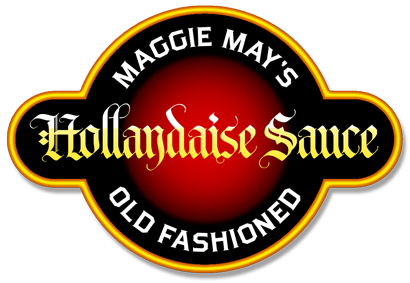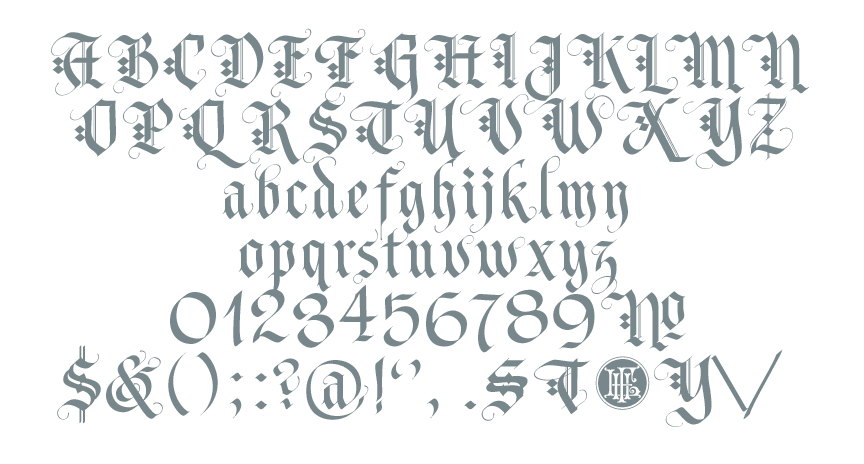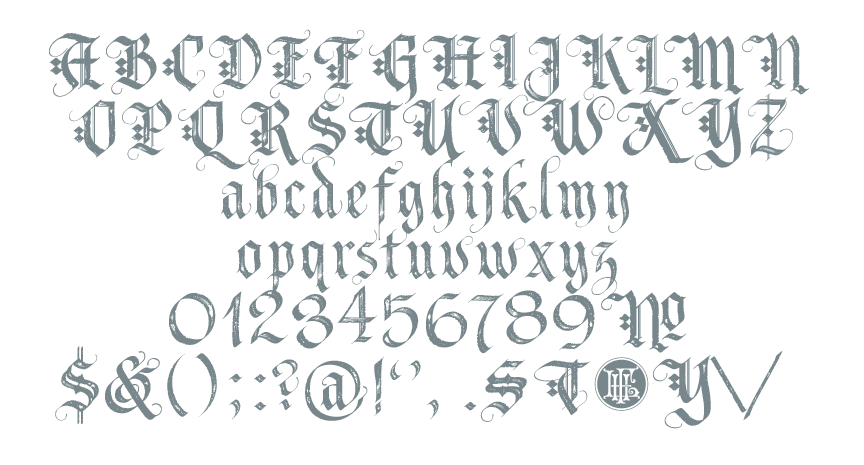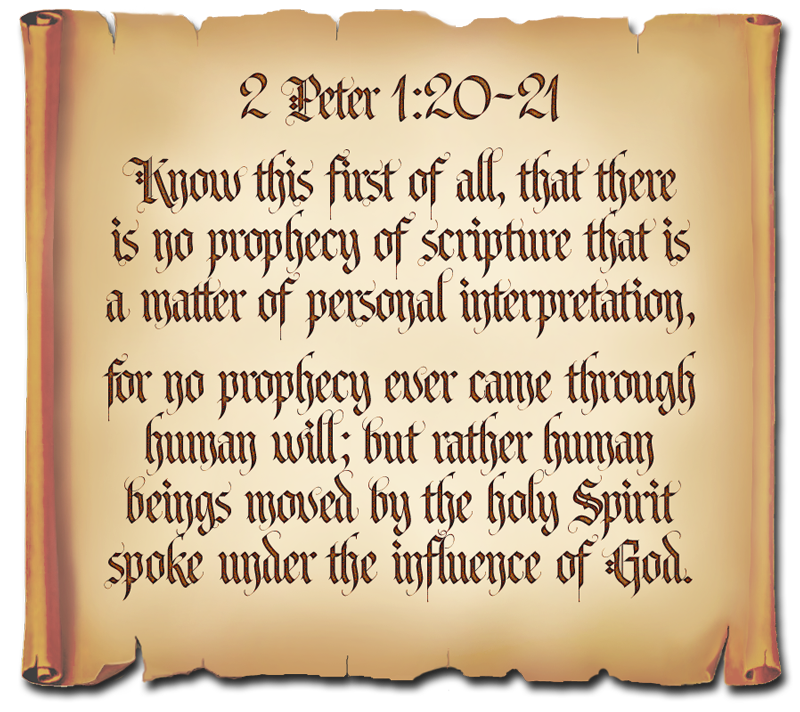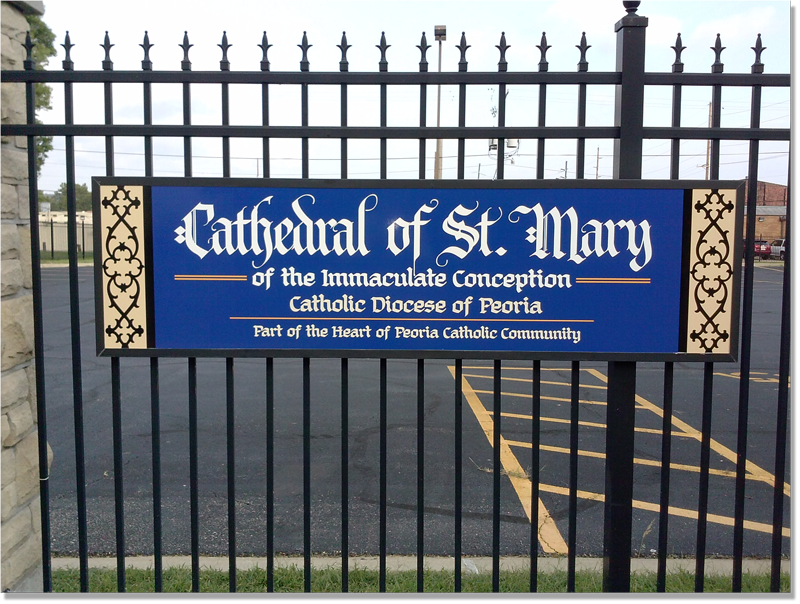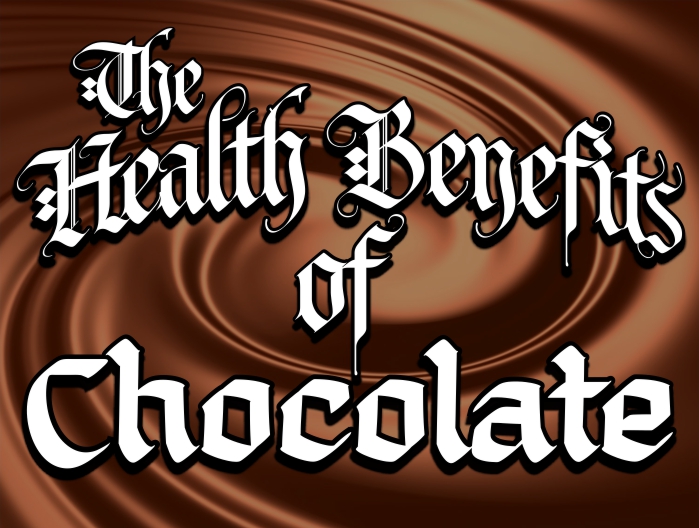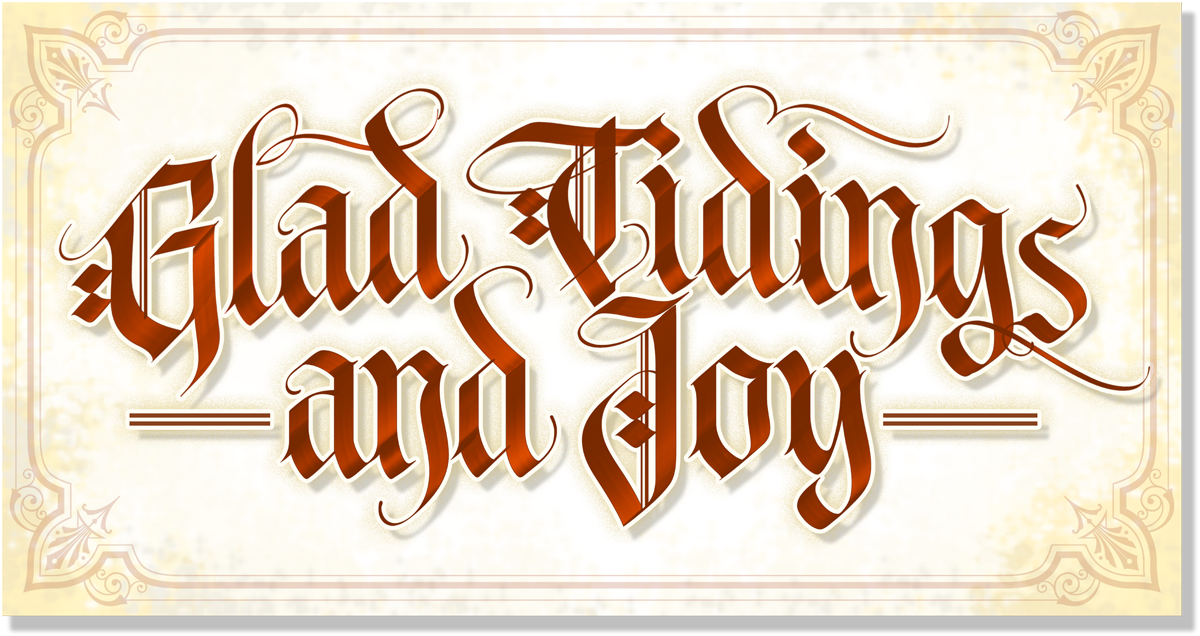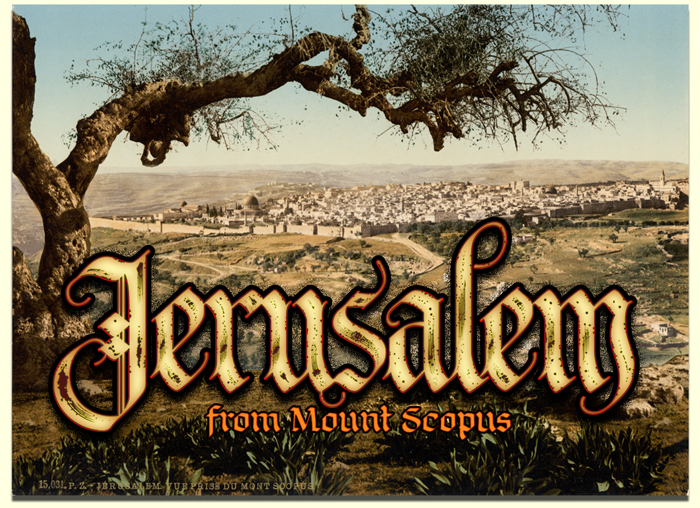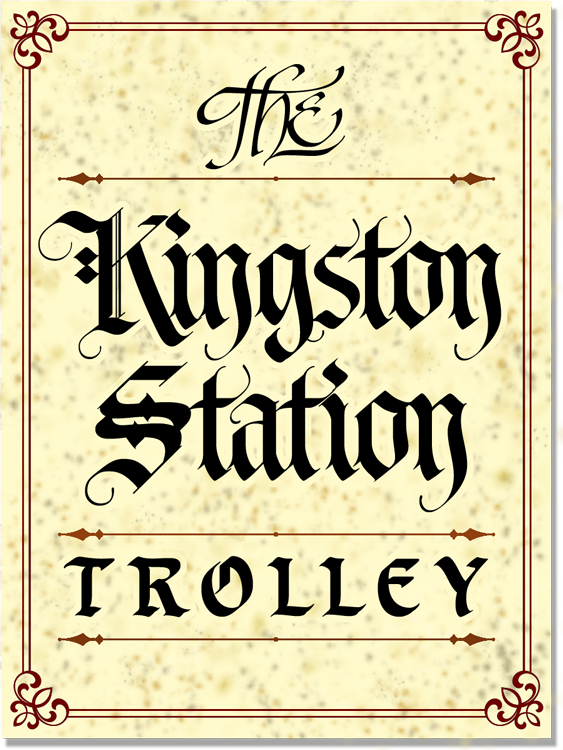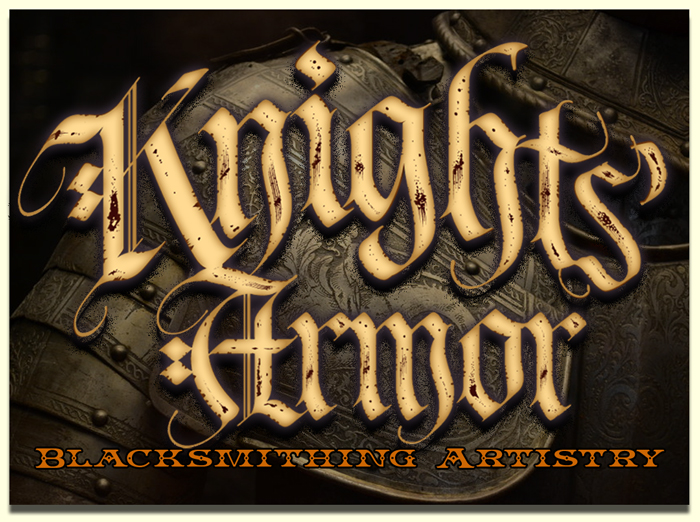
Tributary's stylish calligraphic design utilizes
a contrasting broad stroke with thin flourishes, which
emulates for the user actual pen or brush drawn characters.
Tributary1 was released in both regular and distressed versions.
Tributary also has 114 alternate and swash characters
standard in both versions.